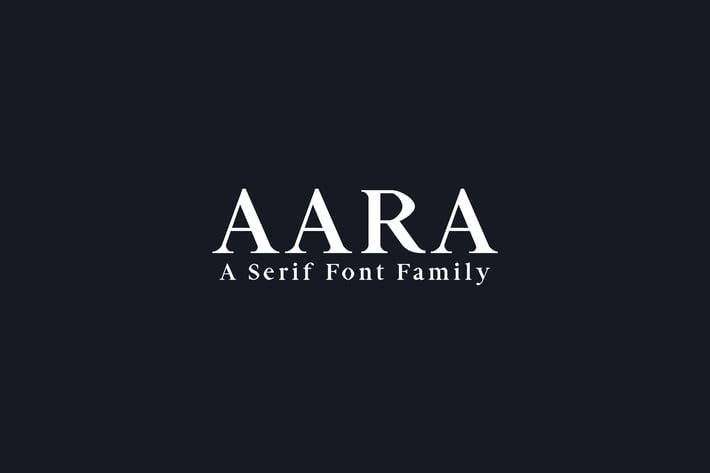
Aara Serif Font Family
Aara Serif Font Family is a pack of 9 weights and it is good for making creative displays and it has serif font. It’s a lovely and unique serif font in our store, allowing you to make each word look completely stylish! It Suits best for modern / clean designs, logos, headlines, banners and templates etc. It looks gorgeous in all caps with a wide-set spacing if you want to try a classy look, or beautiful on its own in capital and lowercase letters for something completely timeless.
- Book, Bold, Regular, Thin and Light Weights, Italic
Aara Font Features:
- Uppercase Multilingual Letters
- Lowercase Multilingual Letters
- Non English Characters ( Latin Supplement + Latin Extended A)